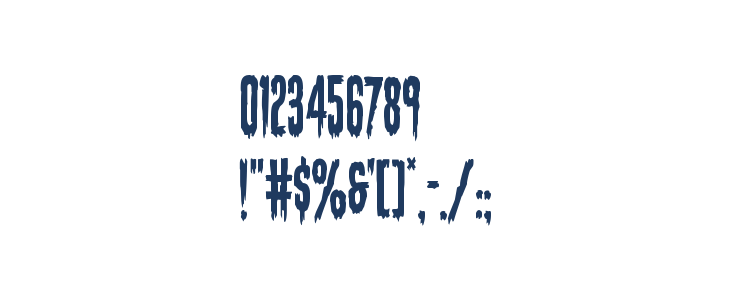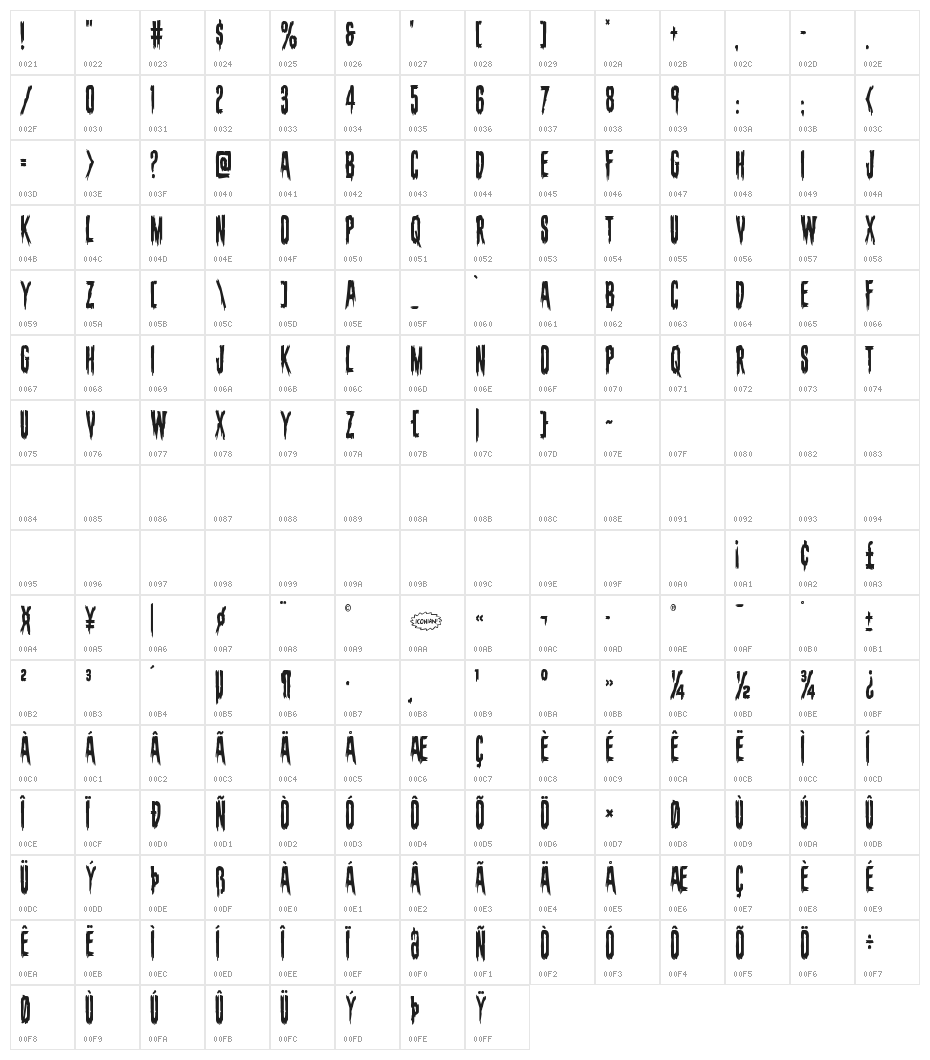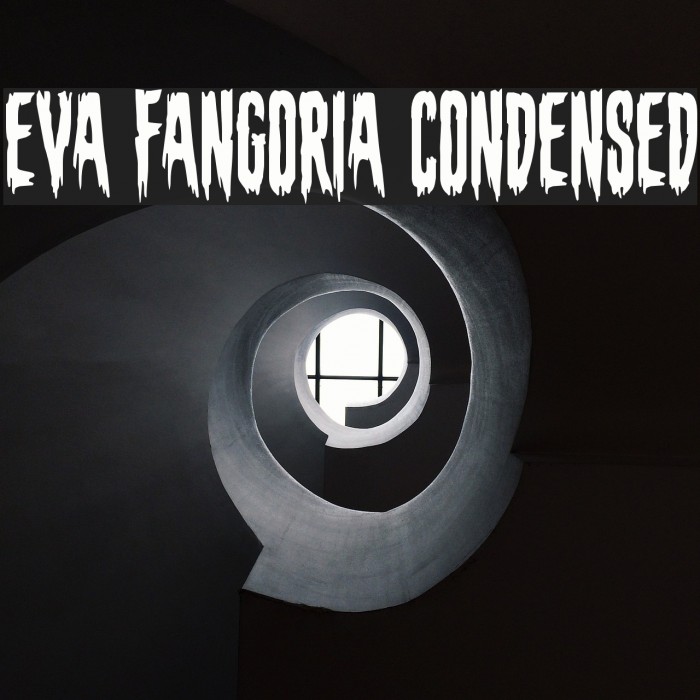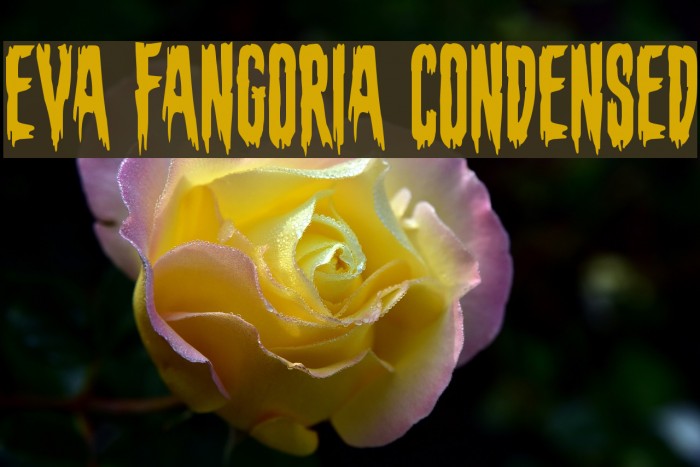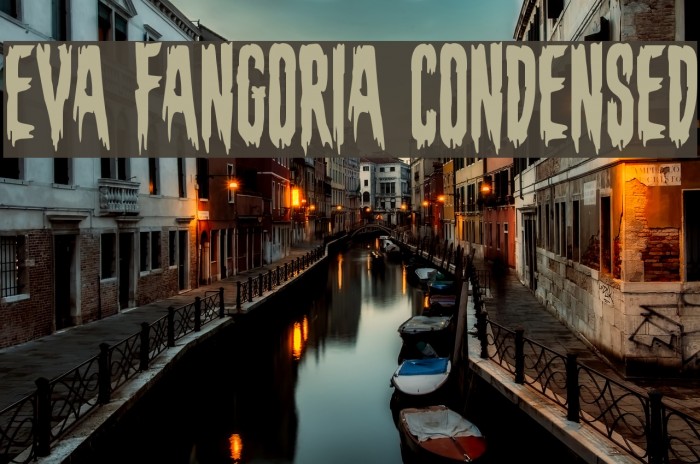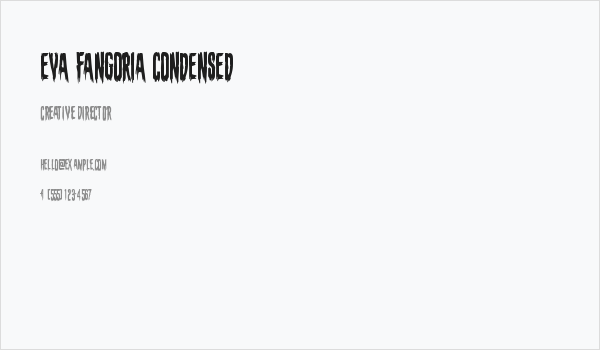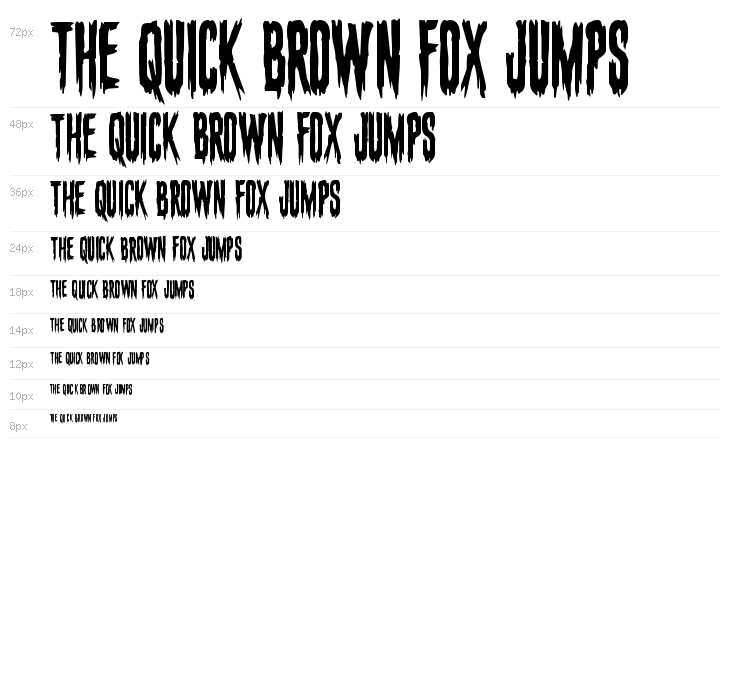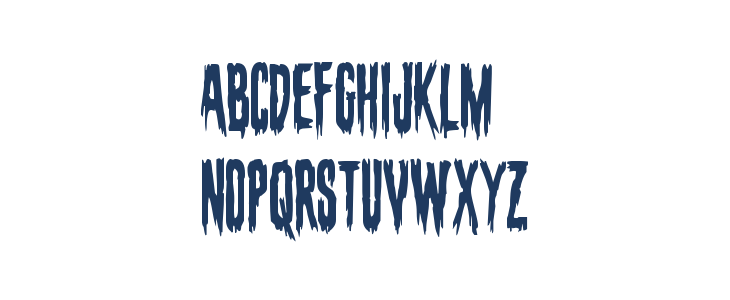
Eva Fangoria Condensed Font
Eva Fangoria Condensed Description
This font features a bold and dramatic design with sharp, jagged edges that give it a distinctly eerie and horror-inspired appearance. The characters are condensed, enhancing the intensity and impact of the text. The uppercase and lowercase letters maintain a consistent style, with elongated vertical strokes and irregular, dripping-like terminations that evoke a sense of unease. The numerals and special characters follow the same aesthetic, making the font ideal for creating a cohesive and thematic design. The overall style is reminiscent of classic horror movie posters, making it perfect for projects that require a spooky or thrilling atmosphere.